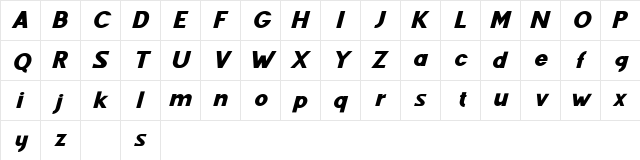
Fenord Free Italic
Design Context for Fenord Free Typeface
Fenord Free offers clean, dependable letterforms without strong stylistic allegiance, making it a practical choice for designers who need flexibility. The dynamic lean of this cut emphasises speed and emphasis in any layout.
Pro Tip: Use Fenord Free for emphasis, pull quotes, and subheadings where its slanted energy can add rhythm to the layout.